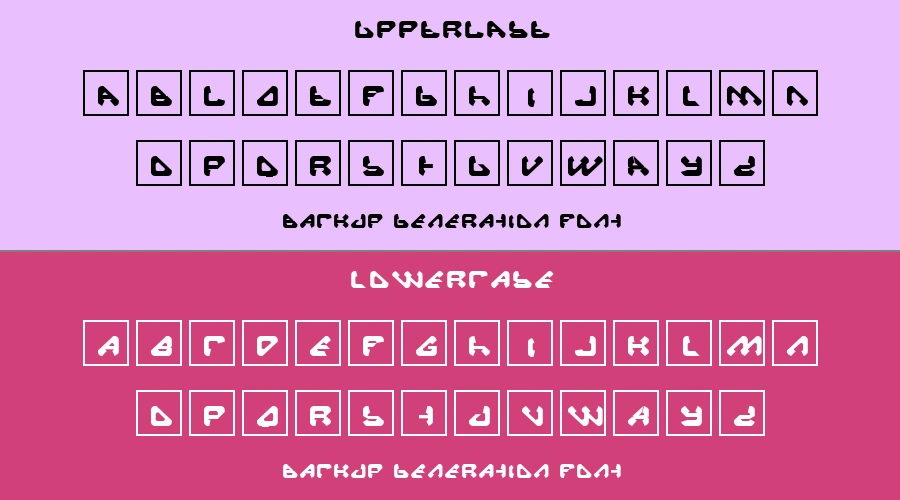
About Backup Generation Font
Backup Generation Font embodies typographic excellence through its masterful combination of fluid motion and flexibility. Created for album artwork, this typeface delivers exceptional clarity and aesthetic excellence across all applications. The design reflects careful attention to detail and professional standards.
Advanced capabilities include distinctive original character and versatile brand signatures, giving designers creative control. When used in identification tags, Backup Generation Font exhibits remarkable reproduction fidelity. The harmonious balance between spur details and industrial acceptance sets this typeface apart.